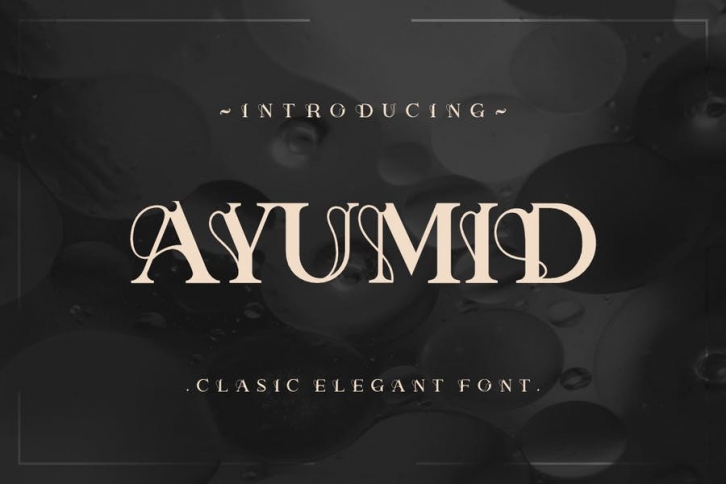
Ayumid Font Download
Introducing AYUMID , elegant simple and modern sans serif font. The feel is elegant and beautiful. This font brings you a beautiful and modern atmosphere. suitable for T-shirts, posters, book covers, cards, merchandise, etc.